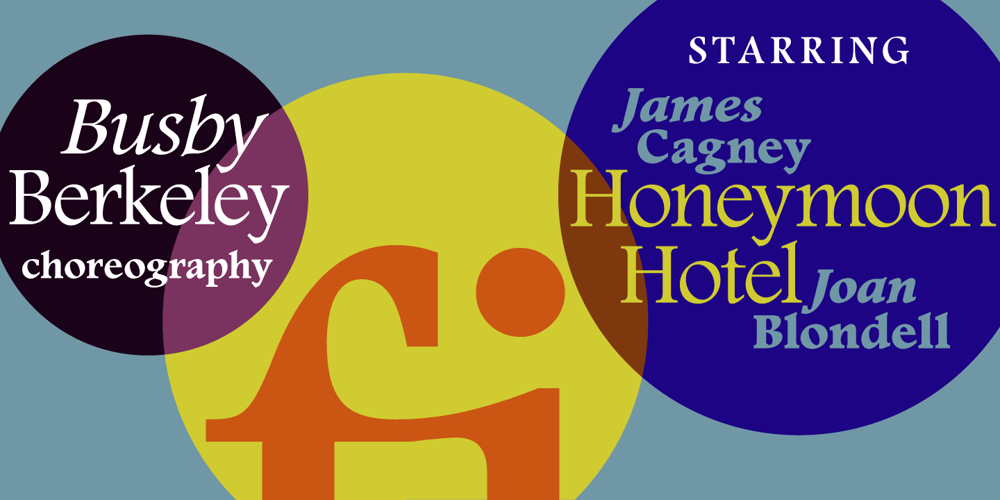
Footlight Font Family was designed by Ong Chong Wah and published by Monotype. Footlight contains 8 styles and family package options. Footlight is a highly distinctive face which began life as an italic. The designer then went on to produce the roman weights. It is unusual to draw the italic version first but this was done to impose a calligraphic influence on the face, and the slightly hand drawn feel remains evident in FootlightÆs roman version. The Footlight font family is of considerable versatility and charm, its originality makes it the perfect choice for advertising and magazine typography.